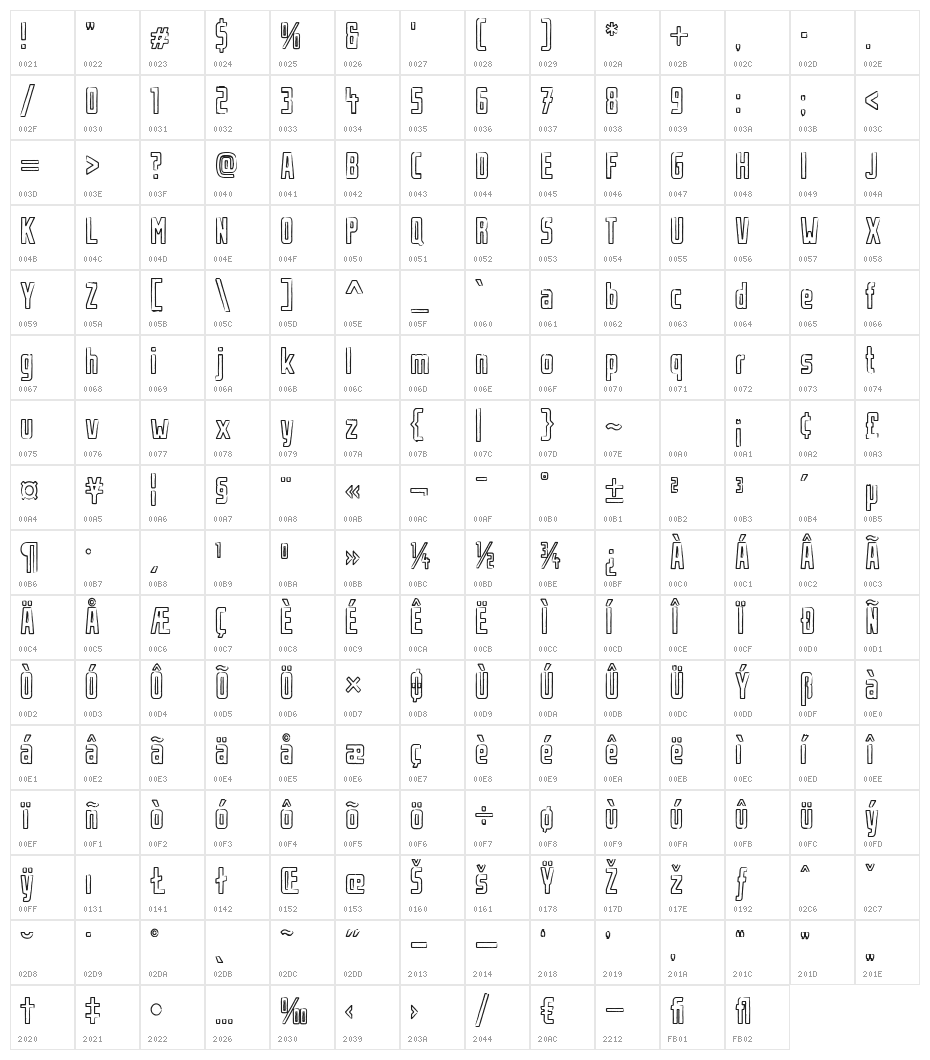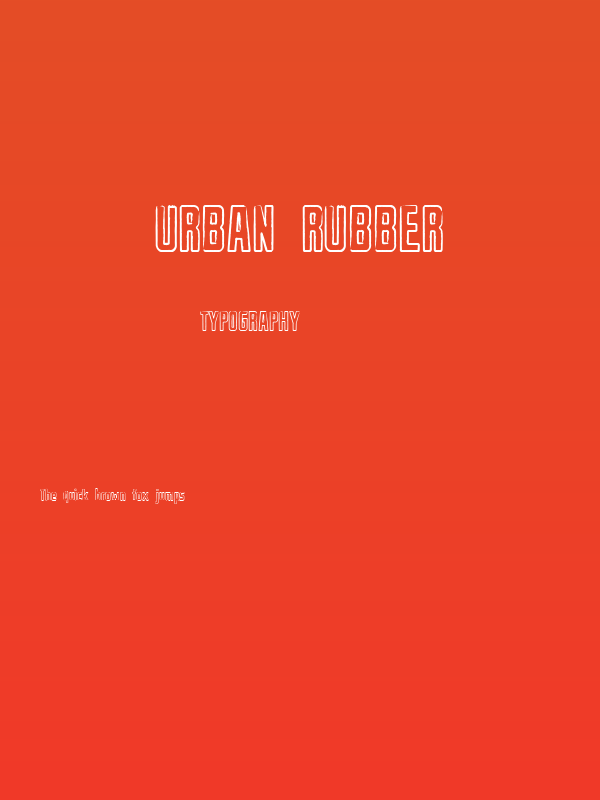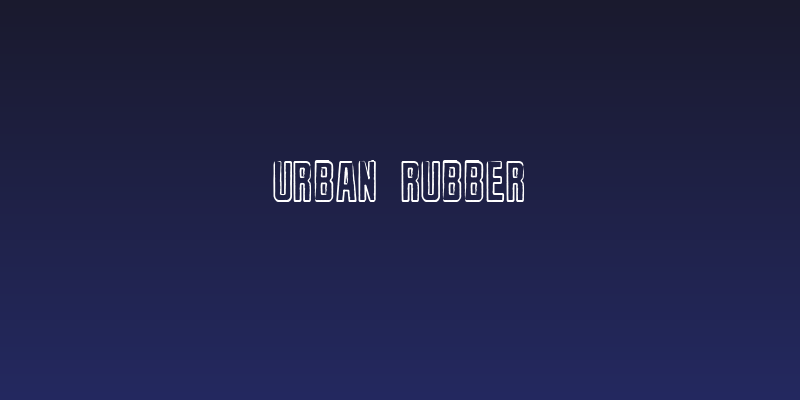
Urban Rubber Font
Urban Rubber Description
This font features a bold, outlined style with a modern and urban aesthetic. The characters are uppercase and lowercase, with a consistent thickness that gives them a sturdy appearance. The edges are slightly rounded, adding a touch of softness to the otherwise strong and industrial look. The numbers and special characters maintain the same design principles, ensuring uniformity across all elements. The font is well-suited for projects that require a contemporary and edgy feel, such as streetwear branding, urban-themed posters, or digital media graphics. Its unique outline style makes it stand out, while the clear and legible design ensures readability.
Proposed ProjectsIdeal for streetwear branding, urban-themed posters, and digital media graphics.
the "stahlbeton" font.